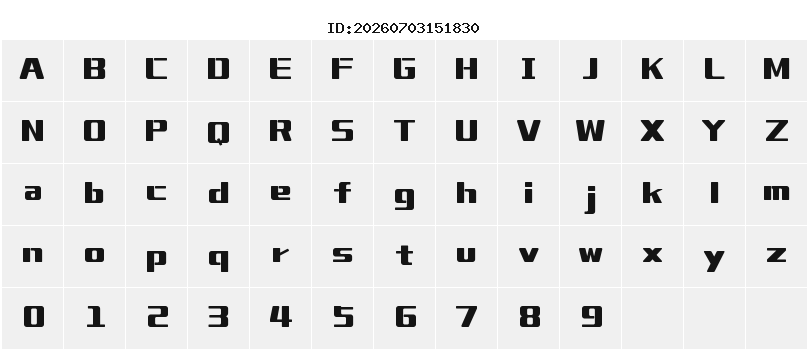
316-上首国美体 Preview
• Font Name: 316-上首国美体
• Font ID: 316-SSBoYaTi:Version 4.00
• Full Font Name: 316-上首国美体
• Version: Version 4.00 January 31, 2024
• PostScript Name: 316-SSBoYaTi
• Character Count: 7568
• Manufacturer: 上首造字
About 316-上首国美体.ttf
316-上首国美体.ttf is a modern, elegant sans-serif font designed for ultimate readability and visual harmony. Perfect for branding, headlines, web design, and print materials.